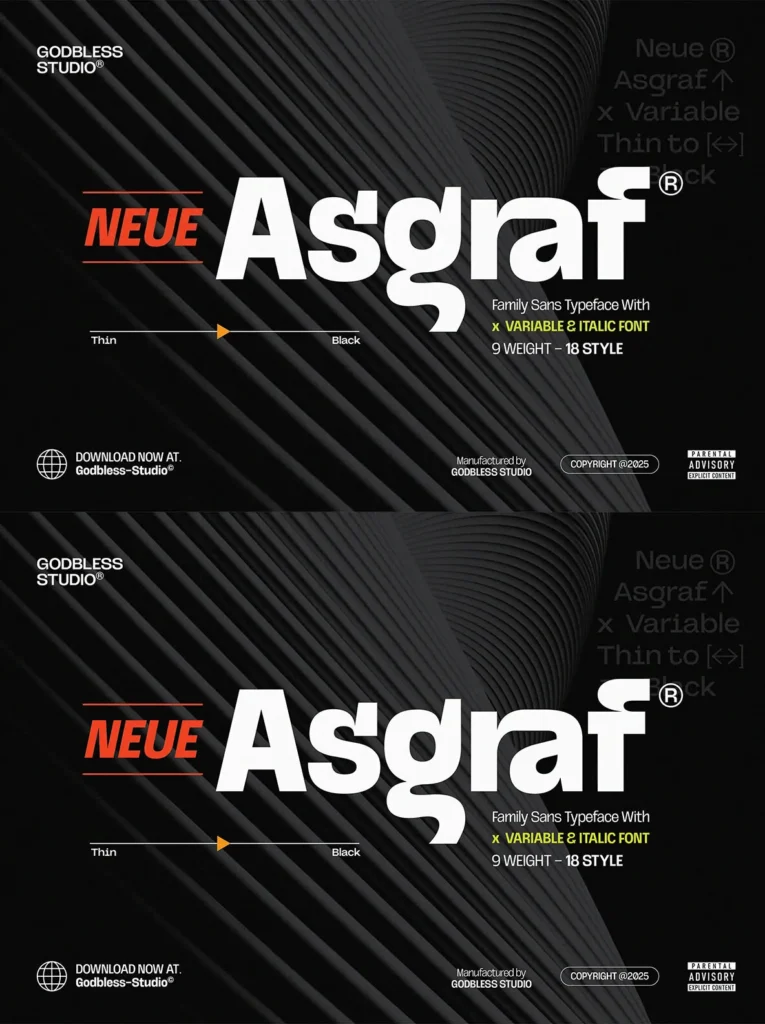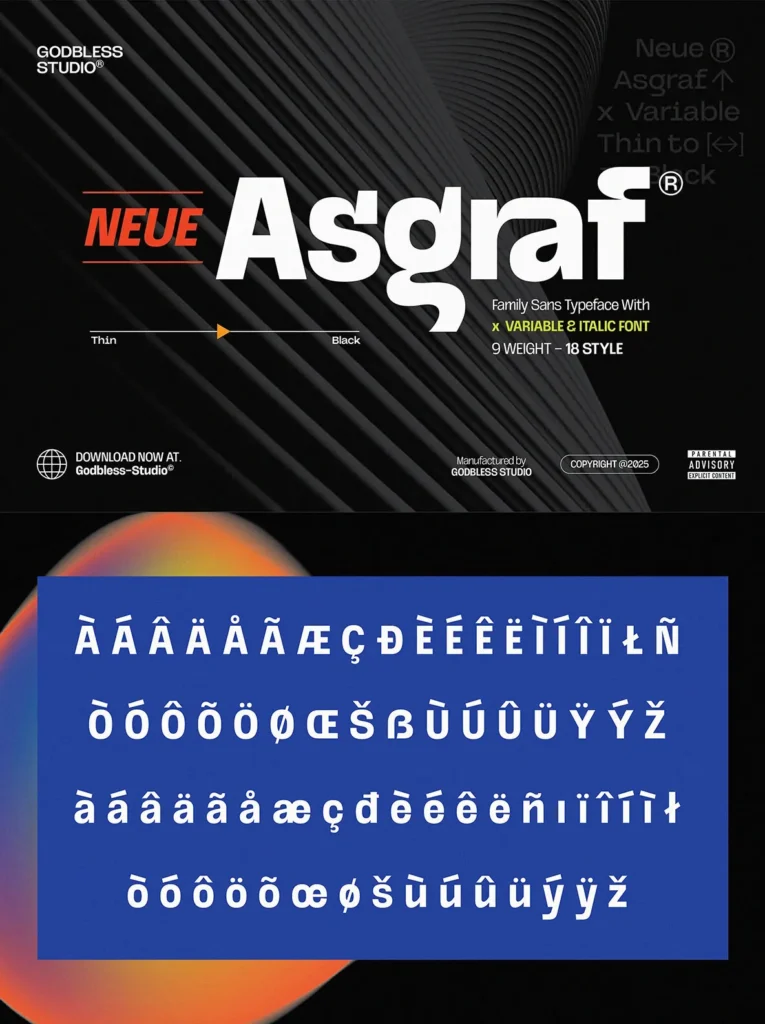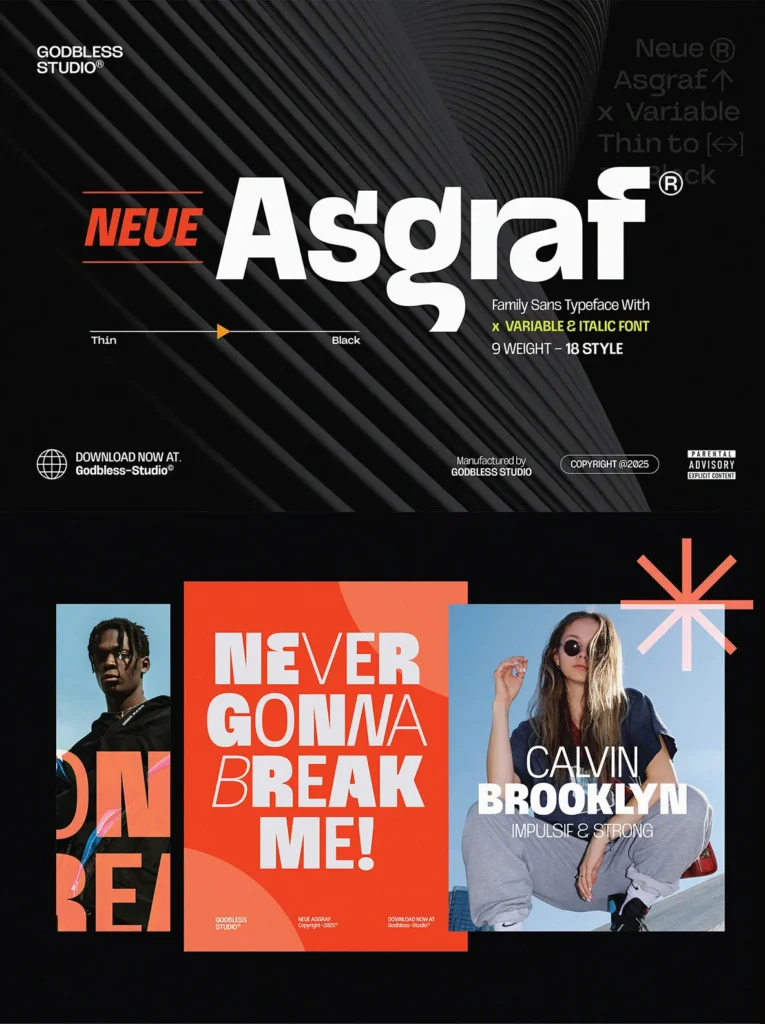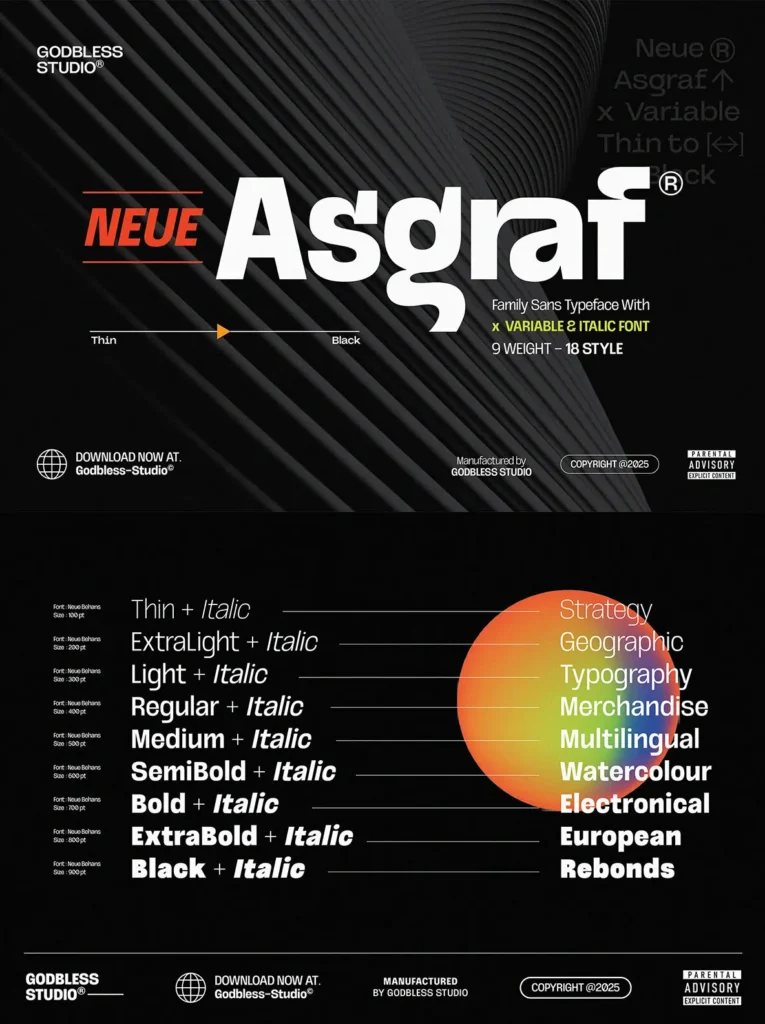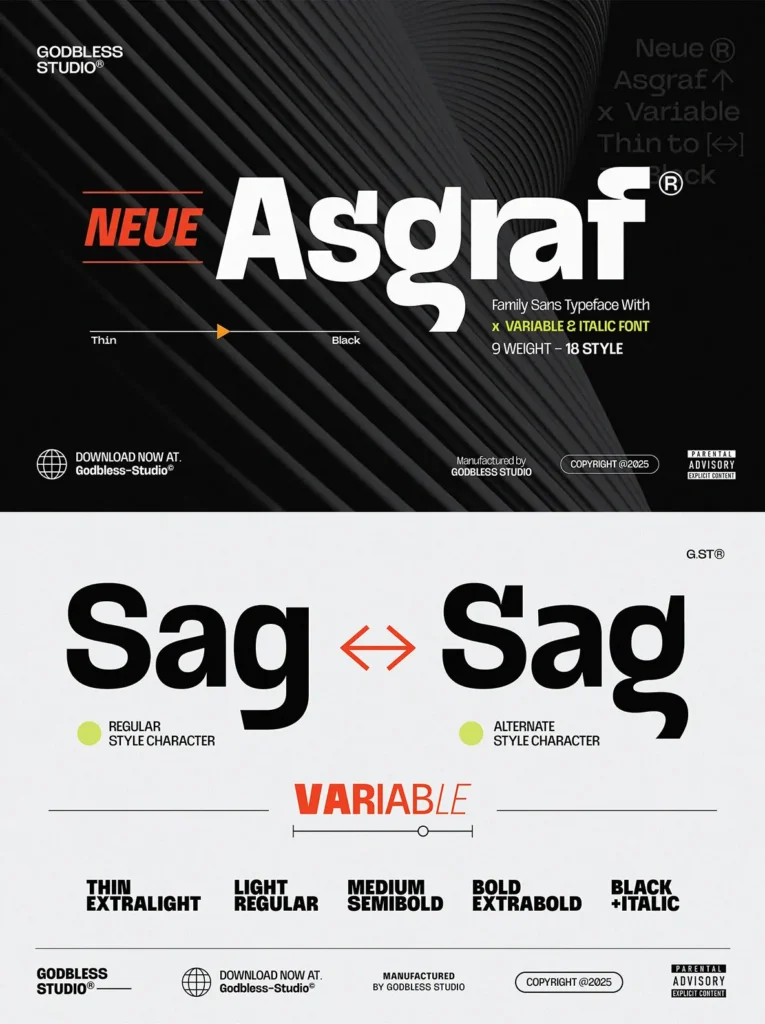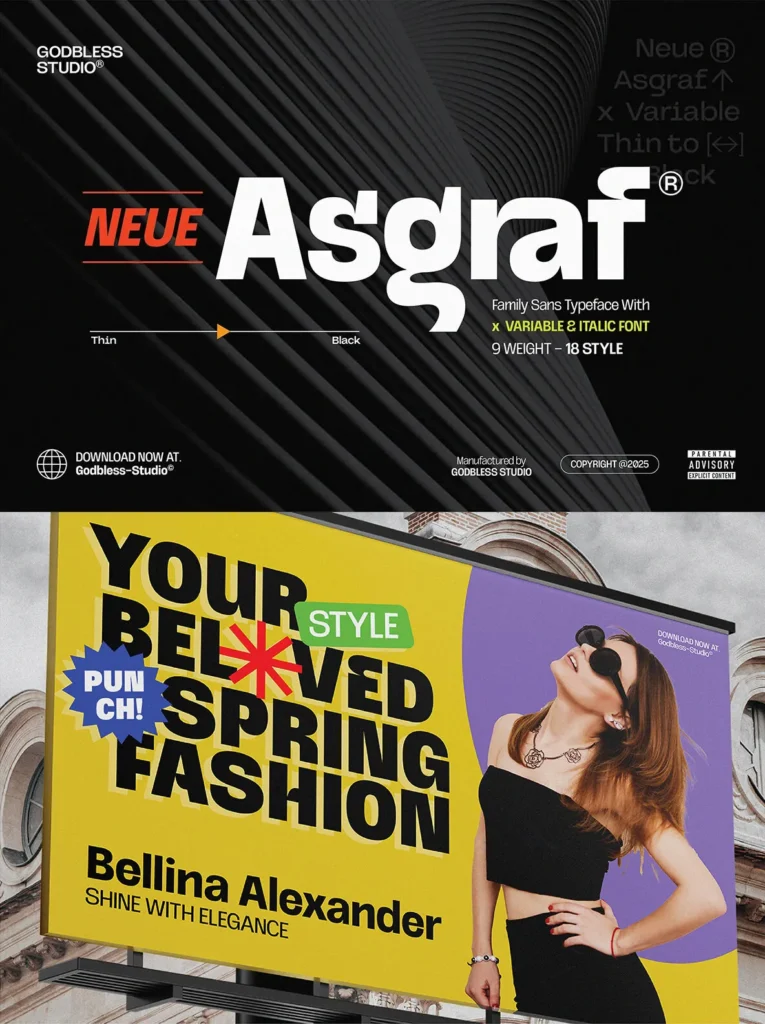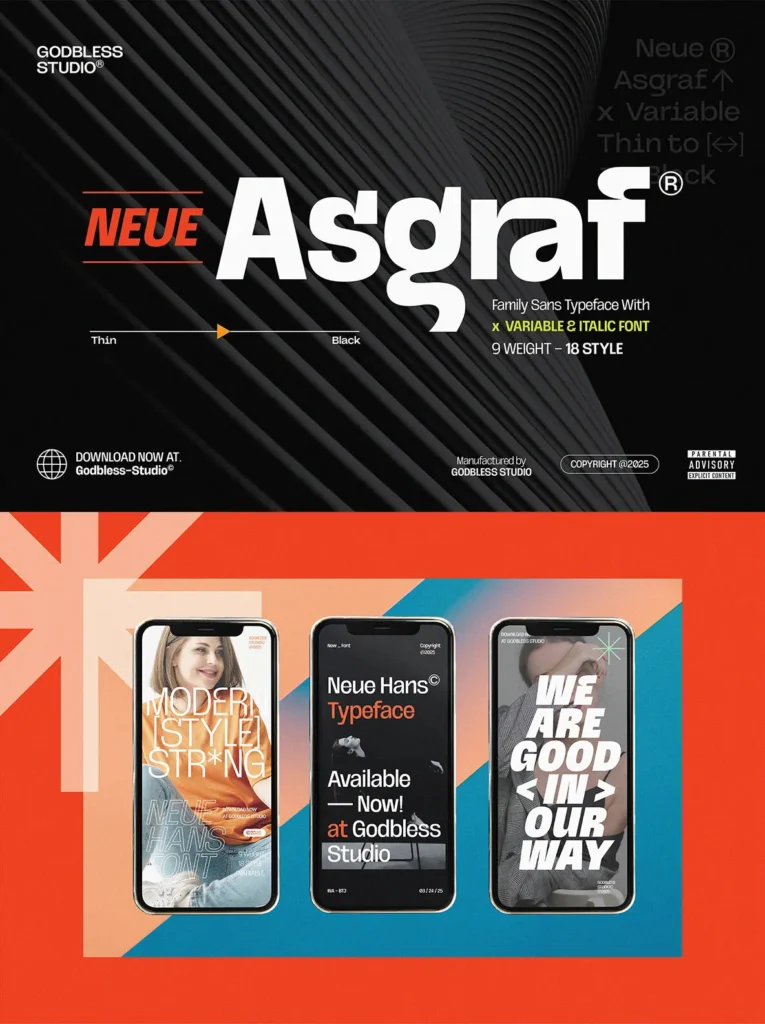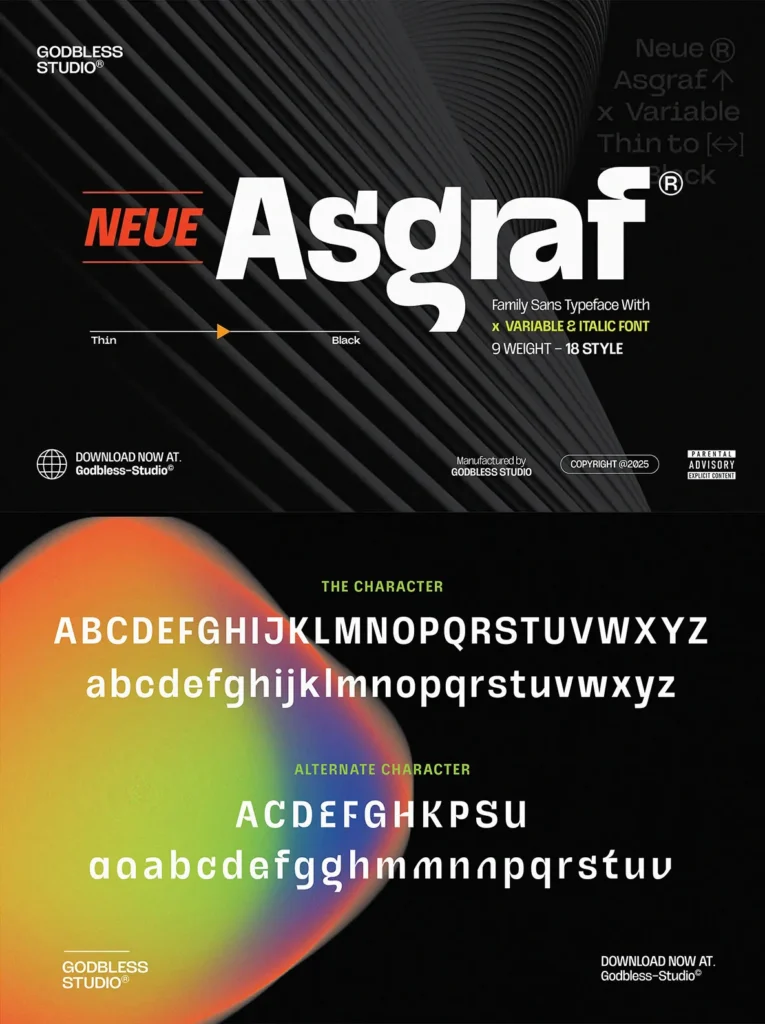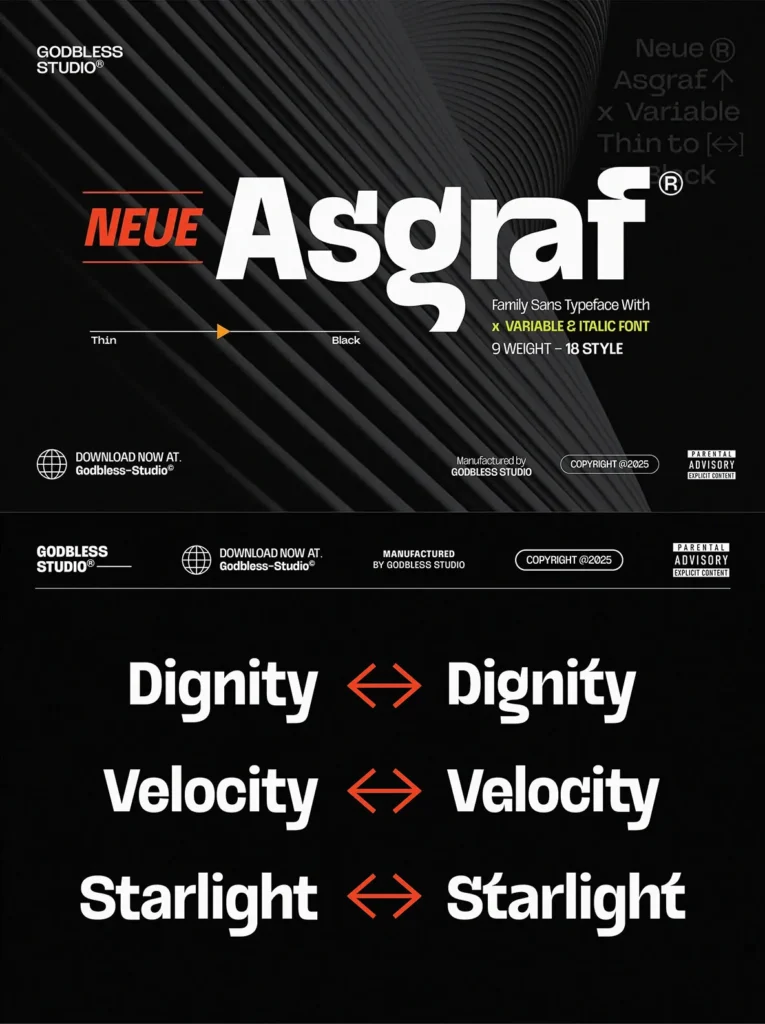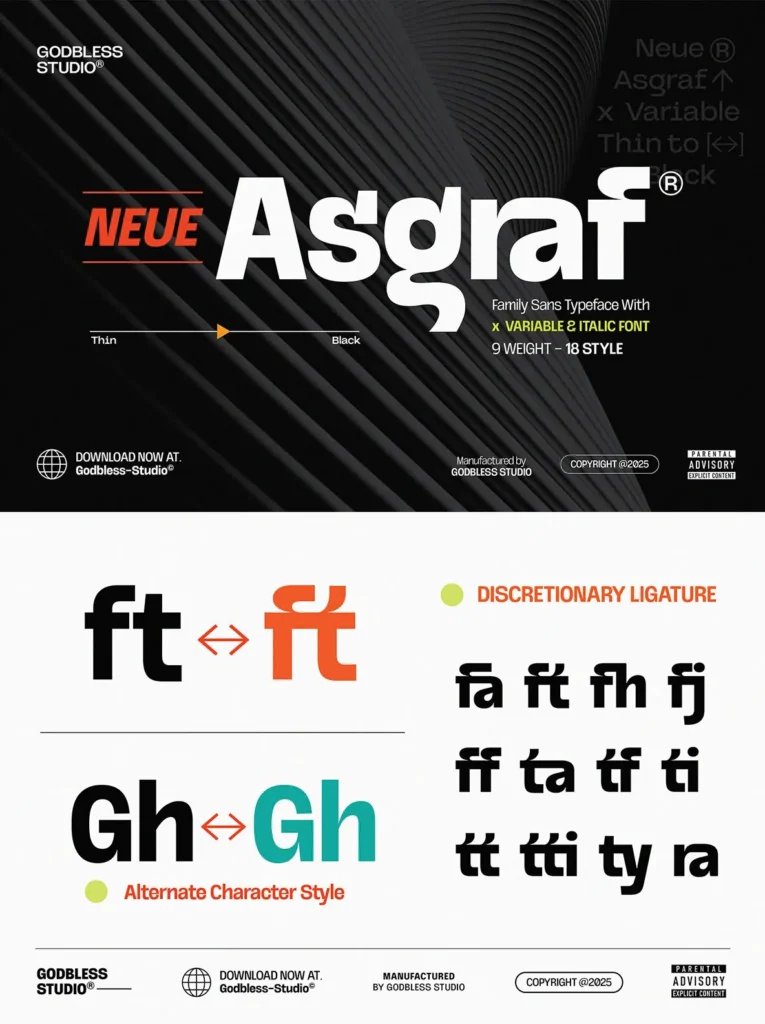
Neue Asgraf: Experimental Elegance in Sans-Serif
Neue Asgraf, a modern sans-serif typeface, perfectly marries experimental flair with sophisticated style. This display font combines clean geometric precision with striking alternate characters, offering a unique visual identity for all creative projects.
Whether for bold headlines or refined branding, Neue Asgraf stands out—versatile, elegant, and confidently distinct. Embrace it as your new design essential.
Features
9 Weights, 18 Styles
– Ranging from delicate Thin to powerful Black, complete with italics.
Variable Font
– Offers total control over weight and style in a single file for seamless responsiveness.
OpenType Features
– Includes discretionary ligatures, stylistic alternates, fractions, and more for enhanced creativity.
Multilingual Support
– Extensively covers a variety of Latin-based languages.
Alternate Characters
– Expand design possibilities with varied letterforms.
Ideal Applications
Poster Design
Editorial & Magazine Layouts
Bold Headlines
Logos & Brand Identity
Product Packaging
Event Invitations & Cards
Digital Interfaces
Modern Advertising Campaigns
Album Covers & Social Media Graphics
Neue Asgraf invites graphic designers, art directors, and creative entrepreneurs to articulate bold ideas with precision. More than just a typeface, it’s an adaptable creative tool that aligns with your vision.